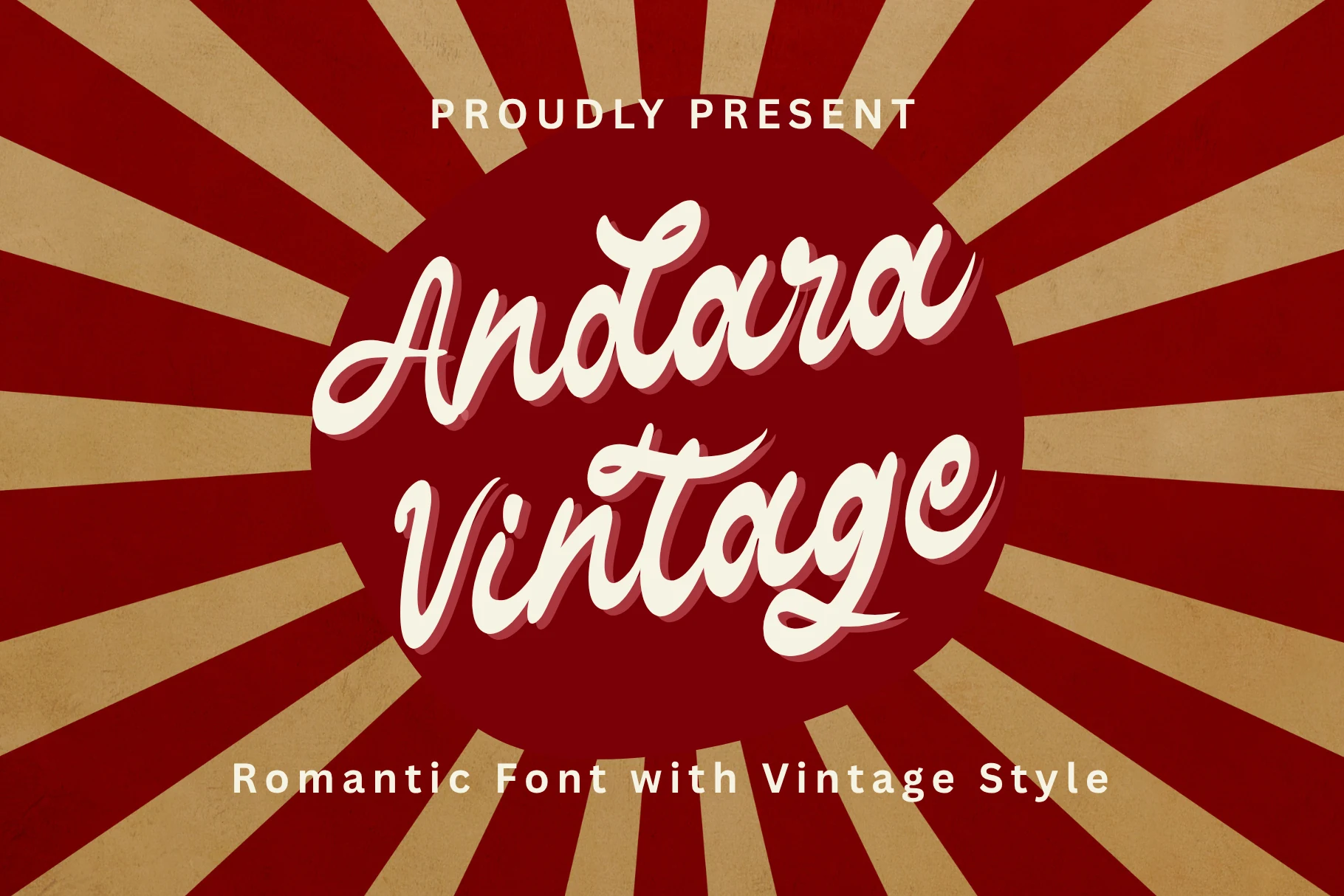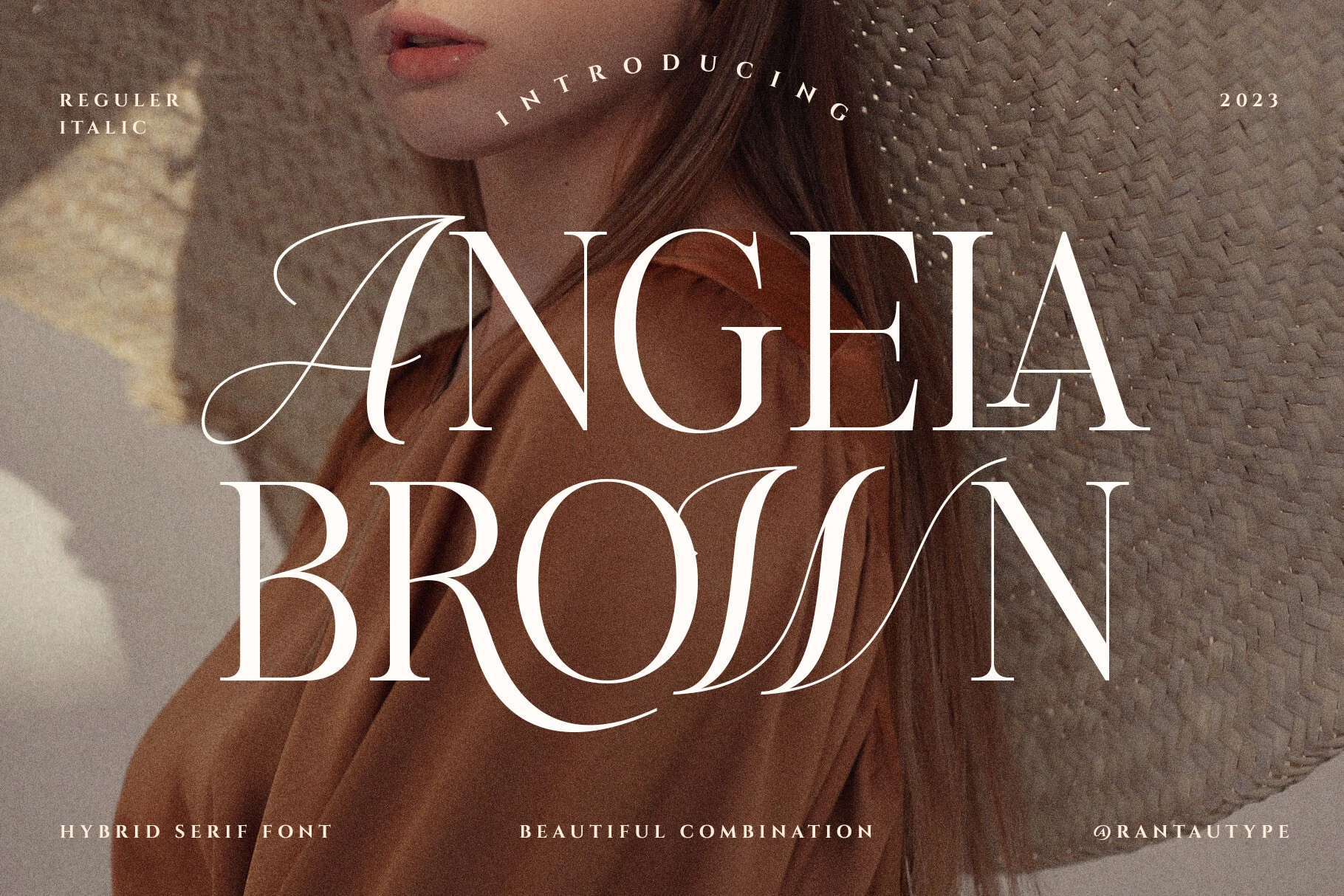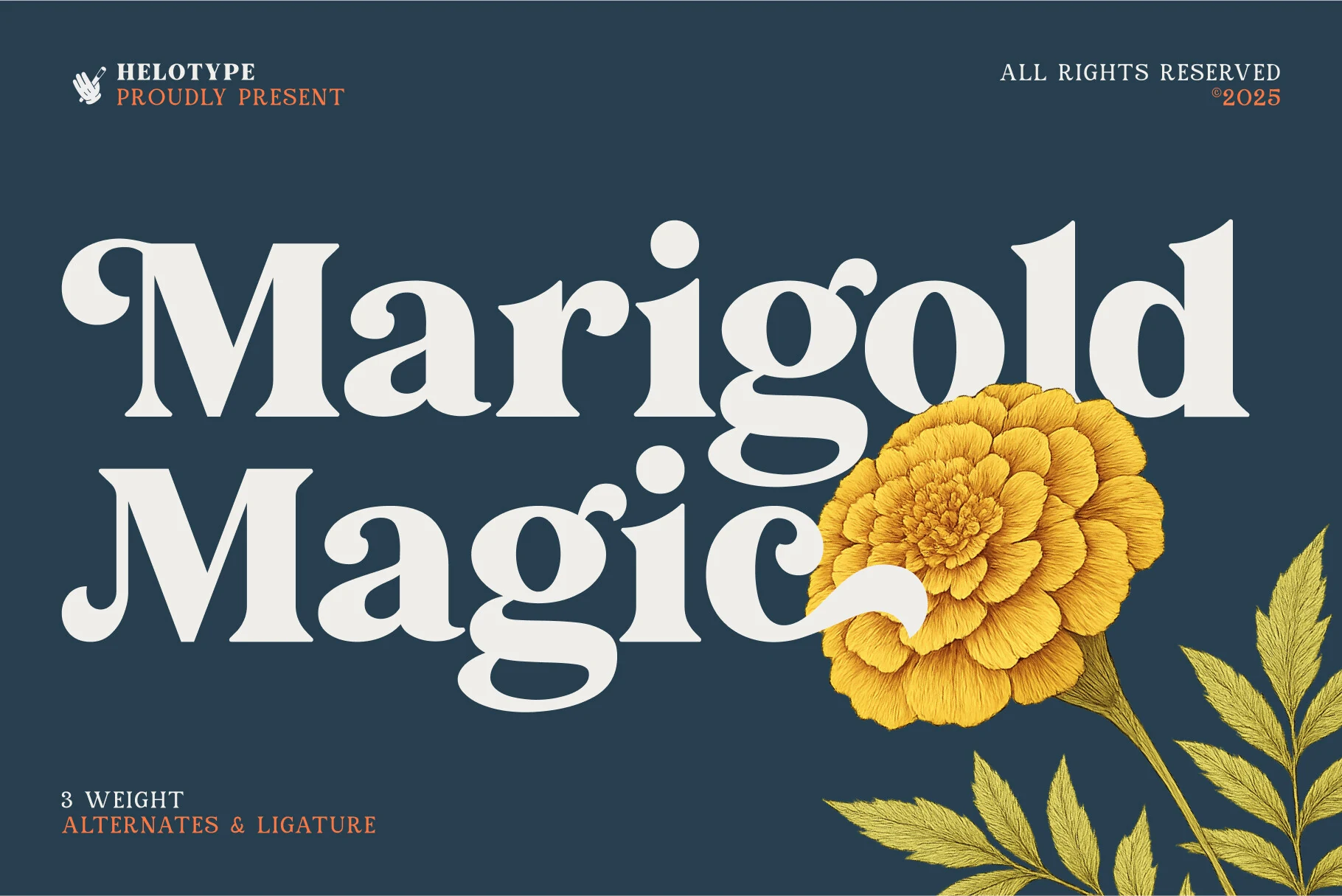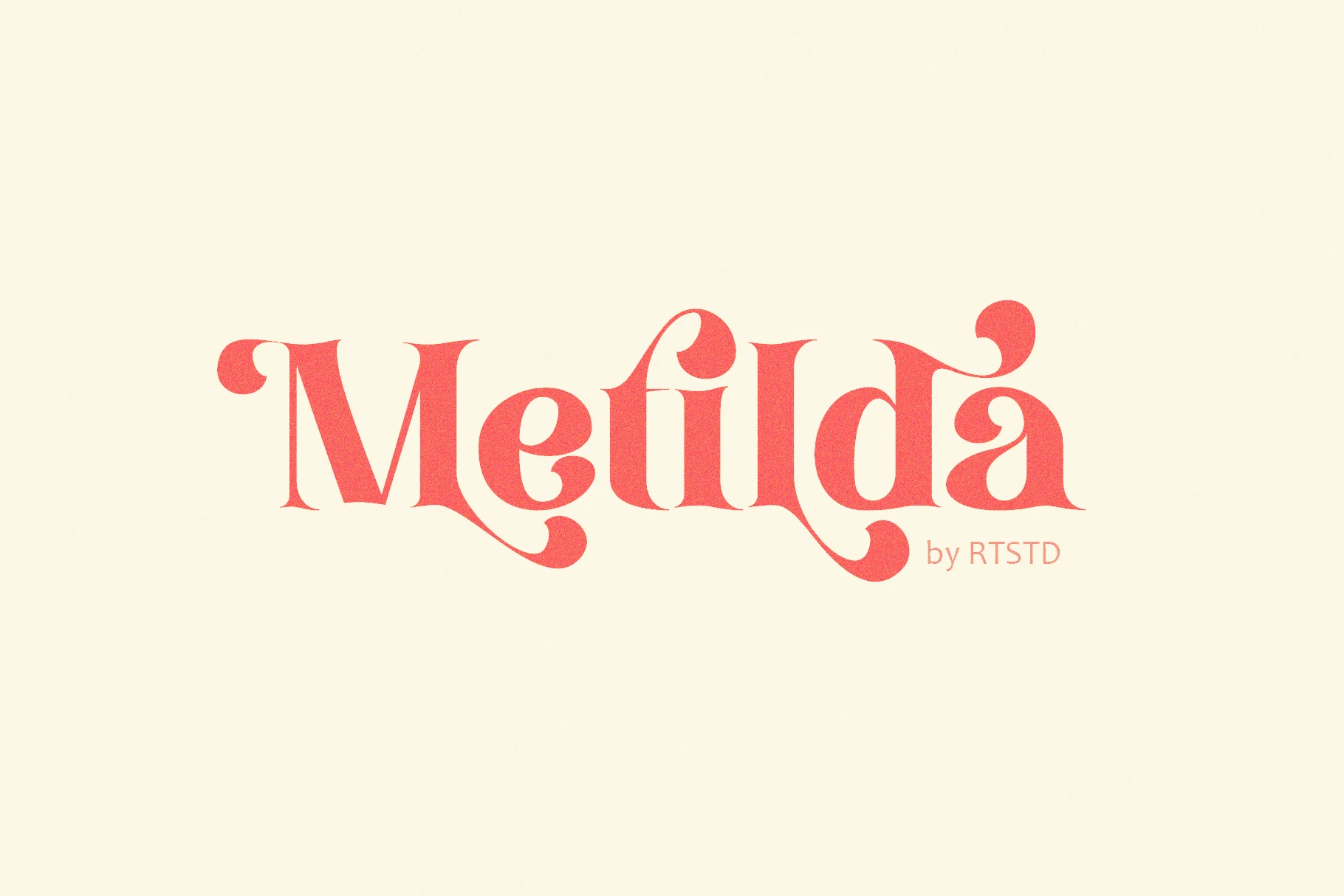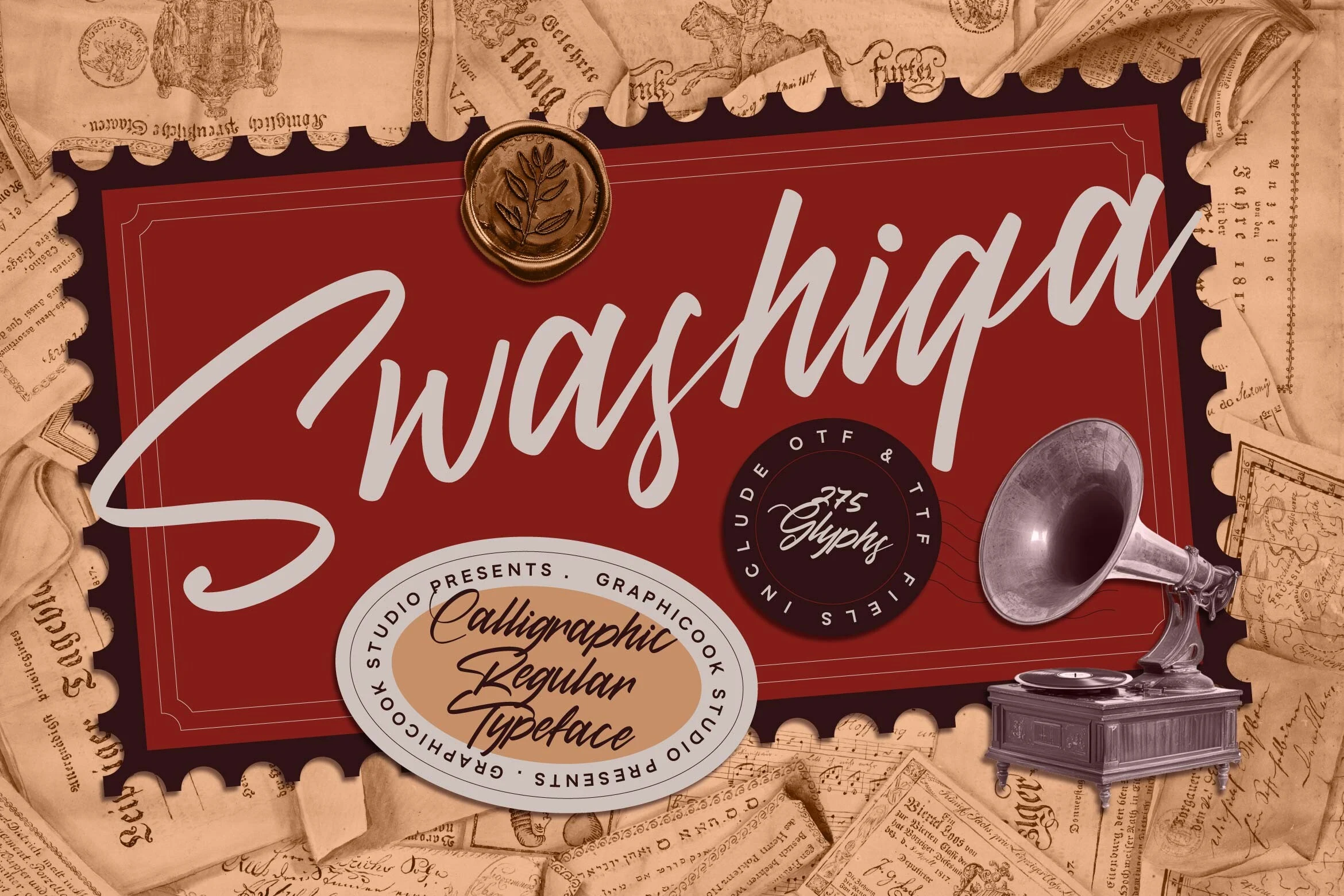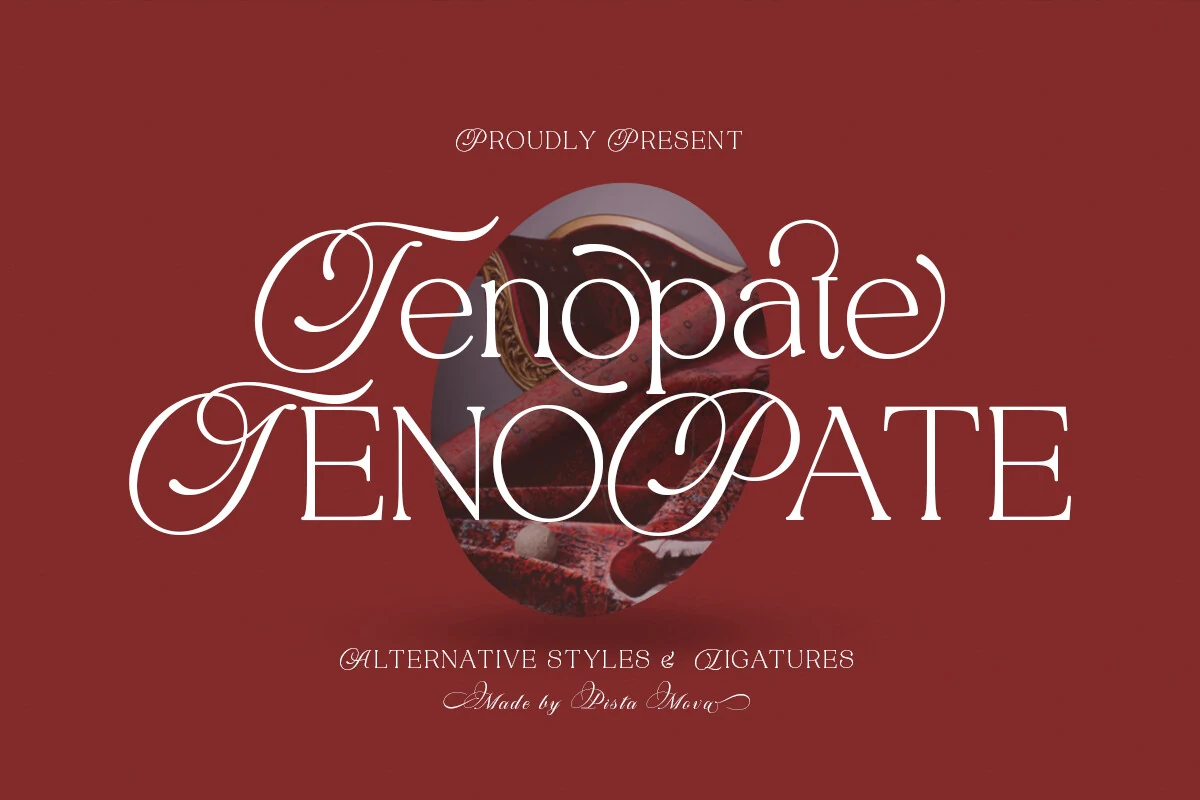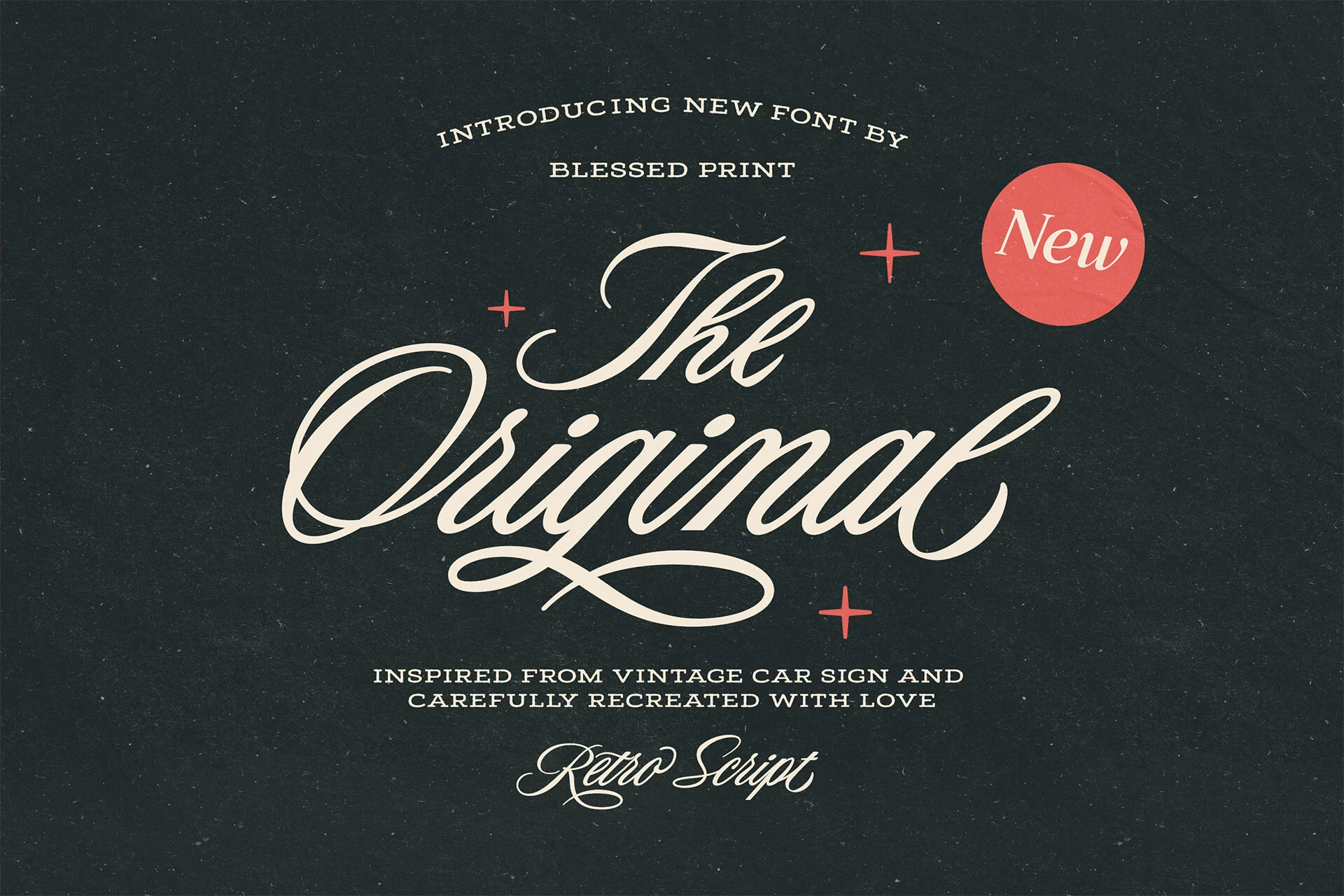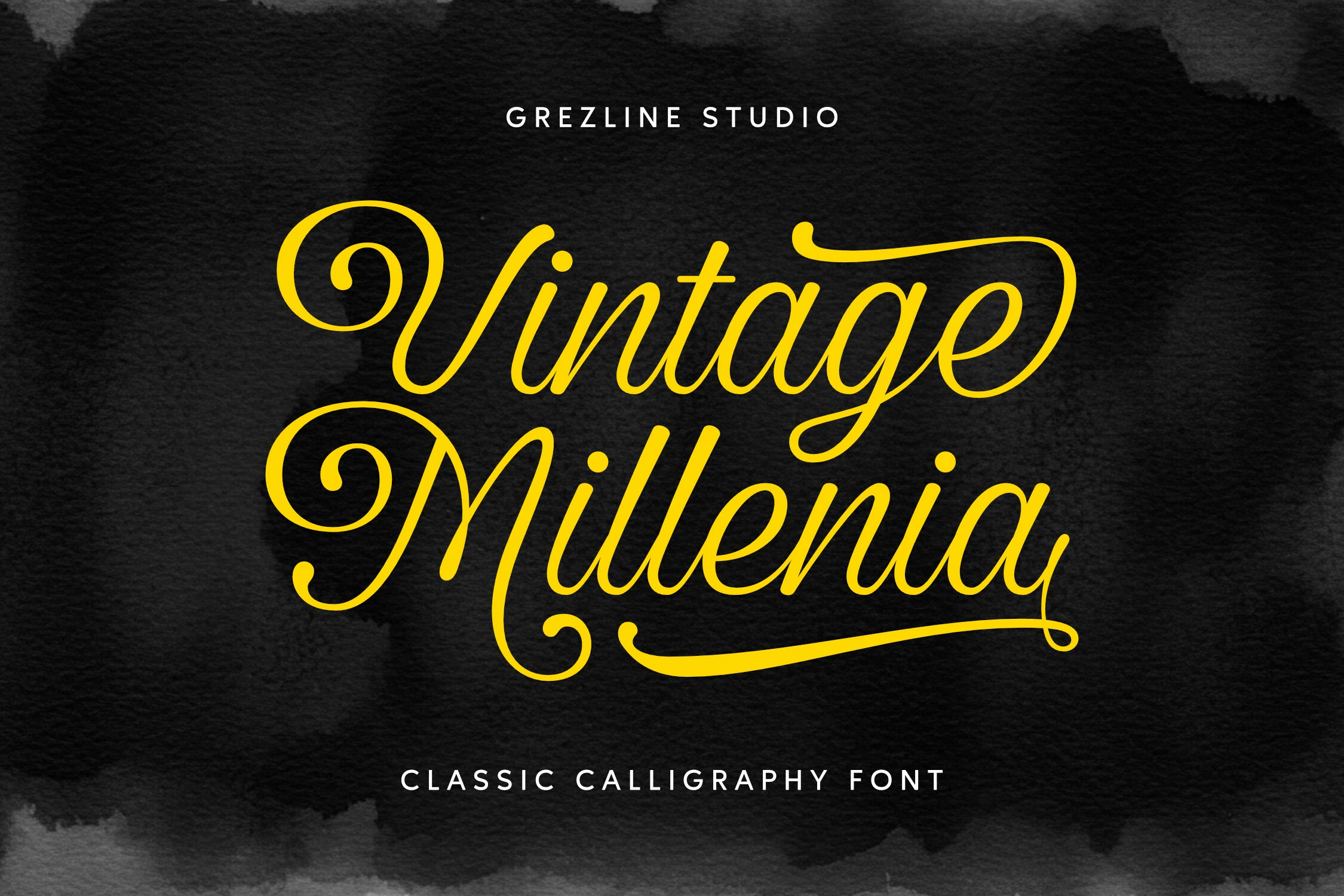
18 Best Vintage Wedding Fonts for Timeless Invites
Vintage Wedding Fonts are ideal for designers building romantic invitations, save-the-dates, monograms, logos, and stationery with old-world charm. This collection focuses on scripts, serif styles, and decorative display fonts that bring nostalgic character without losing readability.
Elegant Script Vintage Wedding Fonts
These refined script fonts use long swashes, smooth slants, and formal curves for invitation names, ceremony titles, monograms, and romantic wedding branding.
Southwestern Font
Southwestern Font preview with elegant high-contrast calligraphy and long looping swashes
Southwestern Font has the drama expected from Vintage Wedding Fonts: steep slant, sharp thick-to-thin contrast, and oversized entry and exit swashes that turn a single word into a formal centerpiece. The uppercase forms are especially ornamental, so the font works best when the title is short and the surrounding type stays restrained.
Its 823 glyphs and 437 alternatives give designers room to adjust capitals, terminals, and decorative endings instead of repeating the same flourish across every name or heading. Use the alternates selectively; the loops are elegant, but too many in one layout can crowd the spacing and weaken the hierarchy.
Swashiqa Font
Swashiqa Font preview in smooth slanted vintage script with a sweeping capital S
Swashiqa Font leans into Vintage Wedding Fonts with a long sweeping capital S, a forward slant, and smooth connected strokes that give it a graceful but confident rhythm. It reads cleanly for a display script, while the tall ascenders and broad opening stroke make the strongest impact in names, headers, and other short lines.
The overall feel is classic and artistic rather than overly delicate, so it can carry both romance and vintage character in the same layout. Pair it with a restrained serif or small caps subtitle, and leave generous side margins so the opening swash and final tail do not press against frames, badges, or decorative borders.
Lumirnas Font
Lumirnas Font preview in elegant vintage script with smooth curves and long flowing swashes
Lumirnas Font has the airy slant and smooth, tapering curves that make Vintage Wedding Fonts feel graceful without becoming fussy. The capitals open with generous movement, and the long finishing stroke gives short names or titles a polished focal point that suits invitations and branding especially well.
Its vintage flair leans refined rather than rustic, so it works best when the surrounding layout stays calm and well spaced. Use it at display size, let the swashes clear nearby borders, and pair it with a quiet serif or sans for details so the script keeps its elegant rhythm and readable flow.
Vintage Millenia Font
Vintage Millenia Font preview in bright yellow calligraphy with smooth swashes and curled capitals
Vintage Millenia Font gives Vintage Wedding Fonts a confident calligraphic feel, with smooth rounded strokes, curled capitals, and long sweeping swashes that naturally frame a headline. The script looks elegant without becoming too delicate, so names and short titles keep their presence even with ornamental details.
Its strongest use is in display settings, where the extended terminals and baseline flourishes have room to breathe. Keep wording short, leave extra space above and below the line, and pair it with a restrained serif or spaced small caps for supporting text so the script remains the focal point.
Bold Retro Script Vintage Wedding Fonts
These heavier retro scripts bring rounded strokes, signage energy, and nostalgic charm to wedding logos, playful invitations, save-the-dates, and statement headers.
Standley Font
Standley Font preview in bold yellow retro script with thick rounded strokes and long swashes
Standley Font brings a cheerful retro bounce to Vintage Wedding Fonts, with thick rounded strokes, smooth connections, and broad swashes that feel lifted from old signage. The heavy script stays readable, but its oversized capitals and tails look strongest in short names, headers, and statement words rather than longer lines.
Extra glyphs give you more freedom to refine letter joins and avoid repetitive shapes, while the extrude style makes it easier to build a layered shadow effect for logos or invitation titles. Pair it with a simple sans serif and leave a little breathing room around the swashes so the playful rhythm stays clear.
Vintage Mother Font
Vintage Mother Font preview in bold retro script with rounded cream letters and dark shadow
Vintage Mother Font is a chunky retro script with rounded strokes, curled terminals, and tightly stacked letterforms that create a bold poster-like rhythm. Within Vintage Wedding Fonts, it suits couples who want a playful throwback mood rather than delicate calligraphy.
For Vintage Wedding Fonts, it works best as the main typographic voice on short titles, monograms, or invitation headers. Keep tracking tight enough for the swashes to connect visually, then pair it with quiet body text so the ornate serifs carry the hierarchy without crowding the layout.
Conclusion
For a formal wedding suite, start with elegant scripts or high-contrast serifs. For a warmer nostalgic look, use bold retro scripts. For more character, choose decorative display fonts and keep supporting text simple.